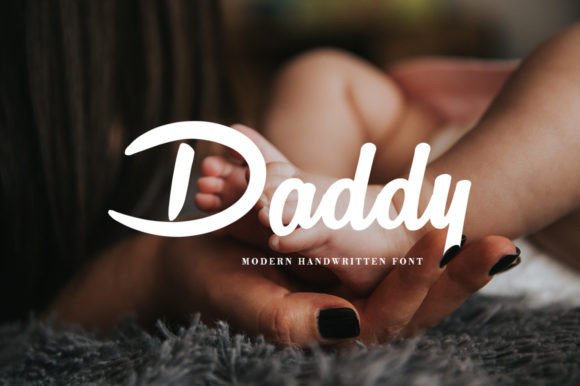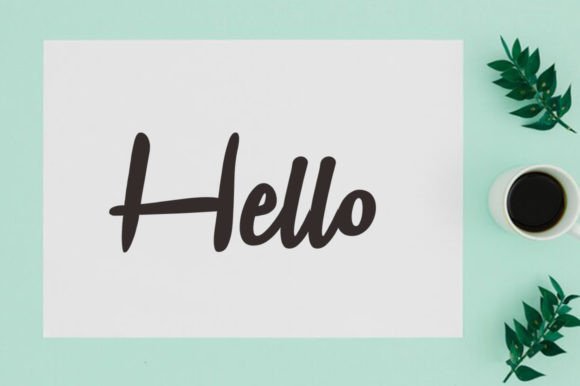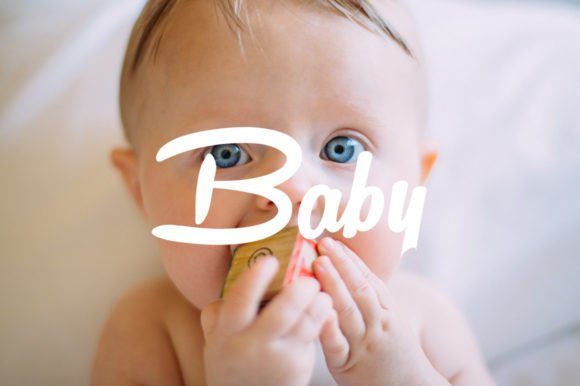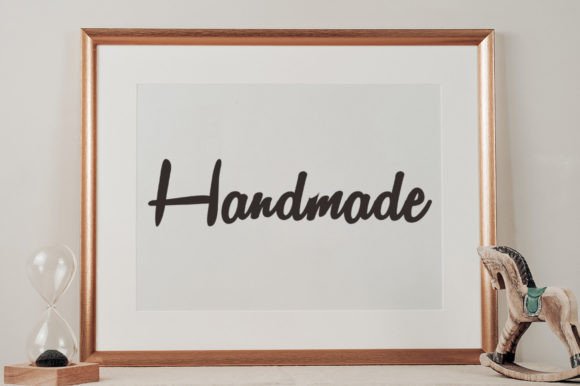
About Daddy Font
Daddy is a simple handwritten font designed to bring a natural and clean touch to any design. With its effortless style, this typeface is a great choice when you want your message to feel warm, approachable, and authentic. Whether you are designing for personal projects or professional branding, Daddy can adapt to almost any creative need.
A Clean and Simple Look
The beauty of Daddy Font is in its simplicity. Each letter is carefully drawn to feel hand-crafted but still neat. It doesn’t have complicated flourishes or distracting details. Instead, the letters have a steady rhythm that makes text easy to read.
This clear, down-to-earth appearance is perfect for designs that need to feel genuine. It helps your words come across as honest and friendly. Whether you are creating something playful or professional, Daddy Font has the versatility to support your vision.
Perfect for Many Uses
One of the biggest strengths of Daddy Font is how many projects it can enhance. You can use it for almost anything, including:
Greeting Cards: Give birthday or thank-you cards a handmade feel.
Invitations: Make events feel personal and inviting.
Logos: Create branding that feels honest and approachable.
Posters: Catch the eye with headlines that are both casual and clear.
Social Media: Add personality to your quotes or promotions.
Craft Projects: Label jars, signs, and DIY gifts with a personal touch.
Presentations: Keep slides readable and friendly.
With this wide range of applications, Daddy can quickly become your go-to handwritten font for all kinds of projects.
Tips to Make Your Designs Shine
To get the best results with Daddy Font, here are some quick design tips:
Keep it Simple: Pair Daddy with clean backgrounds for an uncluttered look.
Use Neutral Colors: Soft hues will enhance the natural feel of the font.
Mix with Sans Serifs: Combine Daddy with a basic sans serif font to create visual contrast.
Add Icons: Small icons or illustrations can complement its handmade style.
Adjust Spacing: Play with letter spacing to improve readability, especially at smaller sizes.
These ideas will help your work look polished and cohesive.
Why Designers Love Daddy Font
Designers appreciate Daddy for its balance between simplicity and warmth. It doesn’t feel too fancy or too casual. Instead, it sits comfortably in the middle, offering just the right amount of personality. This makes it ideal for brands and creatives who want to keep things real and approachable.
If you are searching for a handwritten font that feels fresh yet familiar, Daddy is the perfect pick.
Bring a Natural Touch to Your Work